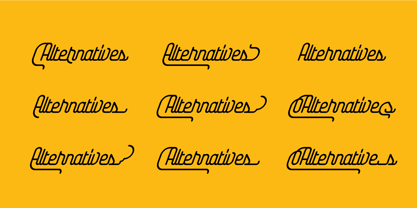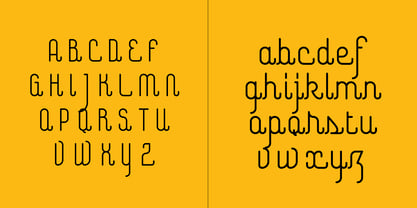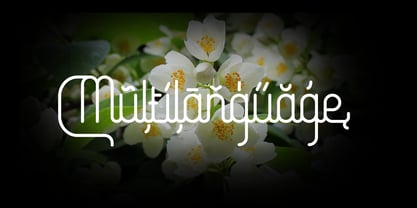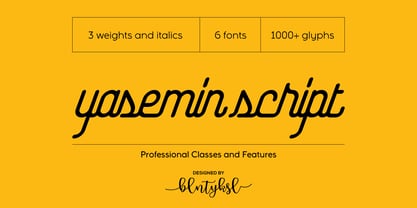
Yasemin
by Bülent Yüksel
The Yasemin Font Family was designed by Bülent Yüksel and published by Bülent Yüksel. Yasemin contains 6 styles and family package options. More about this family
My wife name is Yasemin. After building this typeface, I wanted to honor with my wife’s name. I think I fully reflects the character I created in my mind. I created ornaments and connected glyphs. Yasemin is an OpenType font that contains 1045 glyphs. Ligatures, alternates, starting, endings, a wide range of latin languages and a set of ornaments. And words specially designed to use in advertising slogan, stationery for weddings, birthdays, etc. TIPS: Try using Yasemin at a 20º angle so that the slanted strokes, ornament become perfectly vertical. Having the decorative ligatures feature (dlig) activated is a good option to see letters dance. TECHNICAL: It is absolutely recommended to use this font with the standard ligatures feature (liga) activated. It makes letters ligate perfectly and also improves the space between words. UPDATES: - 3 December 2015 Opentype Feature (fractions) update. - 20 March 2019 Opentype Feature (fractions) update. Some bug fixes.